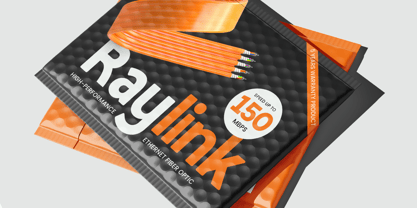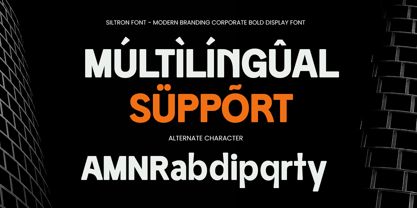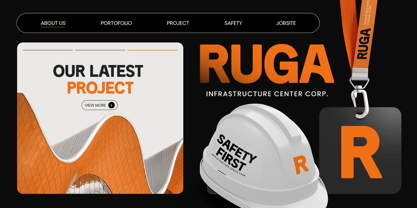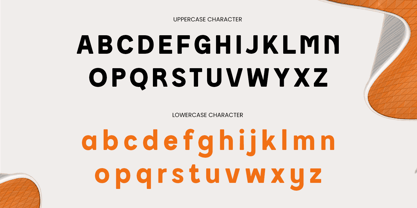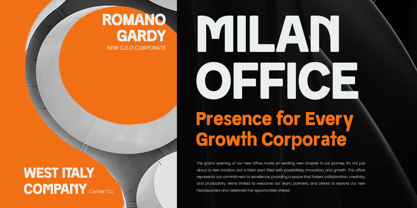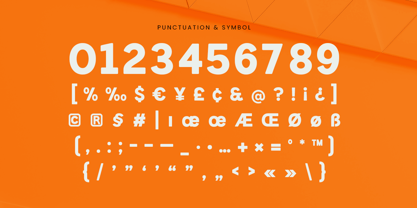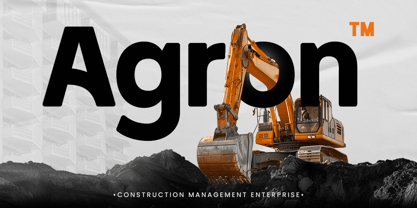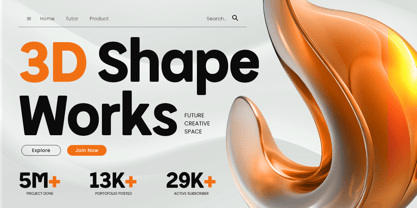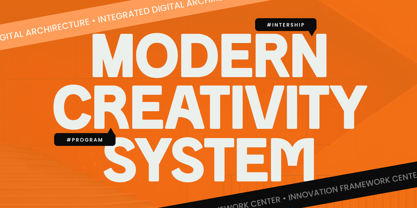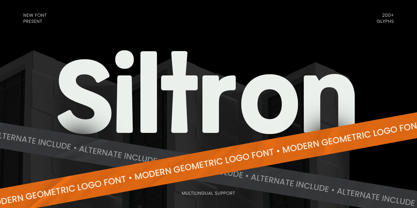
Siltron
The Siltron Font Family was designed by Zamroni Hamzah and published by Sensatype Studio. Siltron contains 1 styles. More about this family
Siltron is a modern branding corporate minimal font crafted to deliver clarity, trust, and a polished professional tone. With clean structure, balanced proportions, and a neutral modern rhythm, this typeface supports brand systems that need to look confident, organized, and consistently premium.
Designed for corporate communication and minimal identity design, Siltron works seamlessly across logos, wordmarks, company profiles, presentations, reports, website headers, UI/UX layouts, dashboards, signage, and social media brand content. Its minimal construction keeps everything readable and refined, making it ideal for both headline statements and everyday business typography.
Whether you’re building a startup identity, refreshing a corporate brand system, or designing clean digital interfaces, Siltron provides a minimal typographic foundation that makes your messaging feel modern, professional, and instantly credible.
Inspiration Behind Siltron
Siltron is inspired by modern corporate typography and minimal design systems—where simplicity, alignment, and legibility build trust. The design focuses on clean geometry and functional rhythm to support brand consistency across business communication, digital products, and professional marketing visuals.
Siltron Font Features:
• Modern minimal letterforms optimized for corporate branding
• Clean structure for clear communication and professional layouts
• High readability for UI, reports, presentations, and headers
• Consistent spacing for system-based brand typography
• Uppercase, lowercase, numerals, and punctuation included
• OpenType features for polished professional typesetting
Perfect For
• Corporate logos, wordmarks, and brand identity systems
• Business presentations, reports, proposals, and company profiles
• Websites, dashboards, UI/UX, and digital product typography
• Signage, brochures, posters, and clean promotional layouts
• Social media branding, ads, and professional communication assets
Multilingual Support
Afrikaans, Albanian, Asu, Basque, Bemba, Bena, Breton, Chiga, Cornish, Dutch, English, Estonian, Filipino, Finnish, Friulian, Galician, German, Gusii, Indonesian, Irish, Italian, Kabuverdianu, Kalenjin, Kinyarwanda, Luo, Luxembourgish, Luyia, Machame, Makhuwa-Meetto, Makonde, Malagasy, Manx, Morisyen, North Ndebele, Nyankole, Oromo, Portuguese, Quechua, Romansh, Rombo, Rundi, Rwa, Samburu, Sango, Sangu, Scottish Gaelic, Sena, Shambala, Shona, Soga, Somali, Spanish, Swahili, Swedish, Swiss, and more.
Build a clean professional identity with Siltron—crafted for modern corporate minimal branding with crisp clarity. ✨